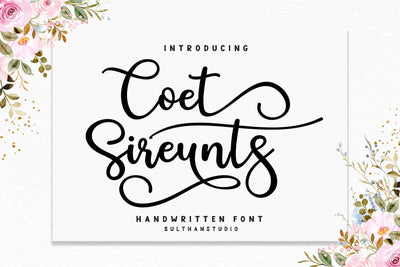
Coet sireunts
Introducing
Coet sireunts - handwritten script font comes with a modern style that is perfect for any job and craft that requires a thick font to get perfect cuts or letters good for use on T-shirts or also stickers, magazines or titles that require a thick script font and lots of it other uses in your work
The font includes uppercase and lowercase letters, numbers, punctuation, Swashes language support, alternatives and also some ligatures it is available in otf/ttf formats also encoded with PUA